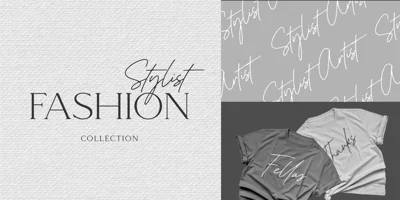
Autographer Font
Autographer Font is perfect for celebrity signature collections, autograph authentication services, memorabilia auction houses, sports memorabilia branding, signature verification companies, and prestigious autograph dealer marketing. Its authentic character makes it ideal for autograph collectors, celebrity memorabilia dealers, signature experts, sports collectible businesses, and any application requiring genuine typography that conveys signature authenticity, collectible value, and the prestigious appeal of authentic celebrity autographs and valuable signed memorabilia.
Autographer Font is exciting because it captures the prestigious value and authentic appeal of genuine celebrity signatures through authentically crafted letterforms that reflect the personal touch and collectible significance of hand-signed memorabilia. Its signature proportions and autograph-inspired details evoke the excitement of meeting celebrities and the lasting value of authentic signed collectibles, making it perfect for brands specializing in signature authentication and memorabilia collection. The font's autograph character transforms communications into expressions of collectible authenticity.
Autographer Font family includes signature-ready weight variations typically featuring Light, Regular, Medium, and Bold options with authentic styling that maintains autograph authenticity. The family often incorporates signature symbols, collectible elements, and authentication marks designed for memorabilia applications, providing designers with comprehensive tools for creating authentic, autograph-focused typographic compositions.
When selecting signature authentication typography solutions, Autographer Font represents an exceptional choice for memorabilia and collectible projects. This authentic typeface brings instant signature credibility to any design, making it invaluable for autograph dealers, memorabilia auction houses, and collectible authentication services celebrating signature value. Whether you're developing autograph authentication branding, creating memorabilia marketing materials, or designing collectible auction communications, Autographer Font provides the signature authenticity and collectible prestige essential for establishing trust in today's memorabilia collection marketplace.